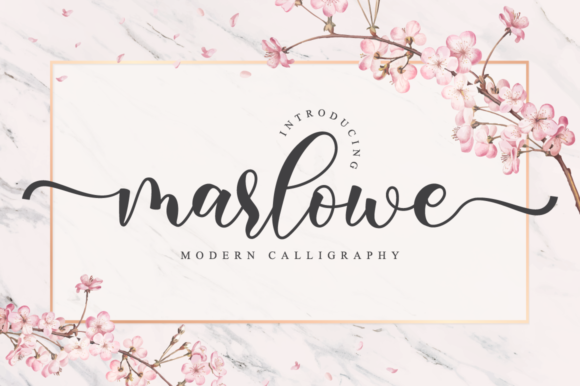
Step into the realm of boundless creativity with Marlowe Font, the exquisite script font crafted by the visionary NissaStudio. Immerse your projects in an aura of timeless elegance, whether it's wedding invitations adorned with intricate details, heartfelt thank-you cards, or captivating quotes that resonate with your soul.
Experience the allure of a handwritten masterpiece, meticulously designed to elevate your designs with a touch of personal charm. Let Marlowe Font grace your logos, business cards, and every creative endeavor that demands a dash of individuality. With its varying baseline, smooth transitions, and an array of gorgeous glyphs, Marlowe Font unveils a world of endless possibilities.
Unlock the gateway to artistic freedom with Marlowe Font, the ultimate choice for Instagram enthusiasts. Transform your social media presence into a visual symphony, capturing the hearts of your audience with every scroll. Unleash your creativity and weave enchanting tales through your Instagram posts, stories, and reels, leaving a trail of visual delight that captivates and inspires.